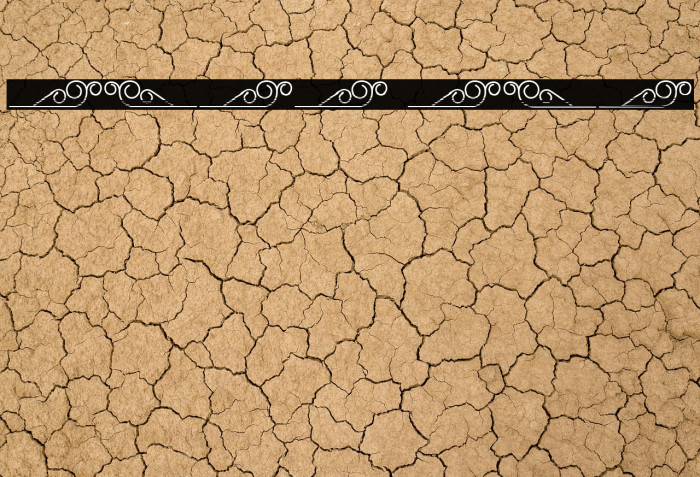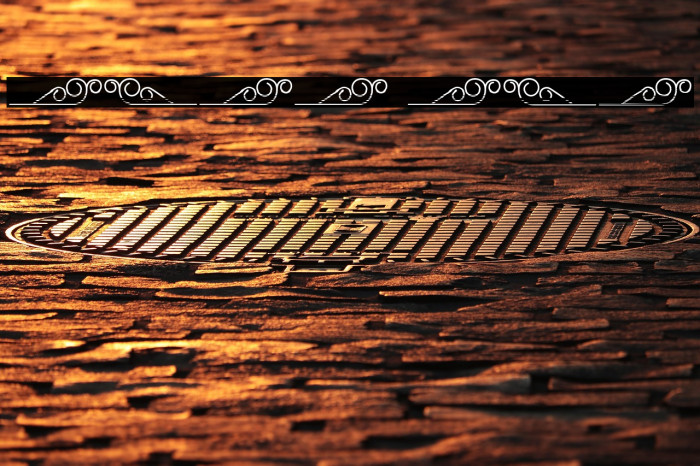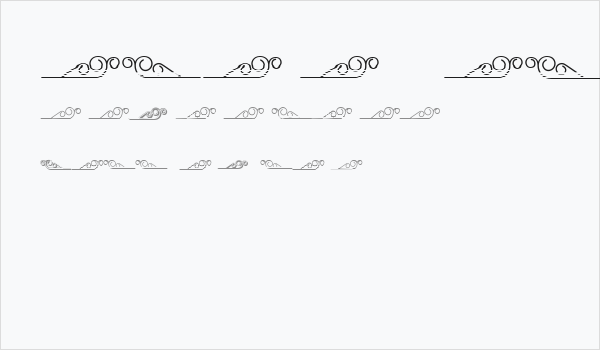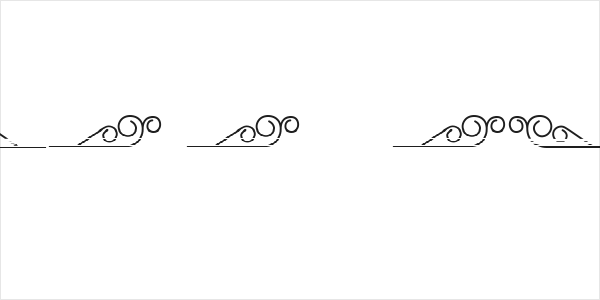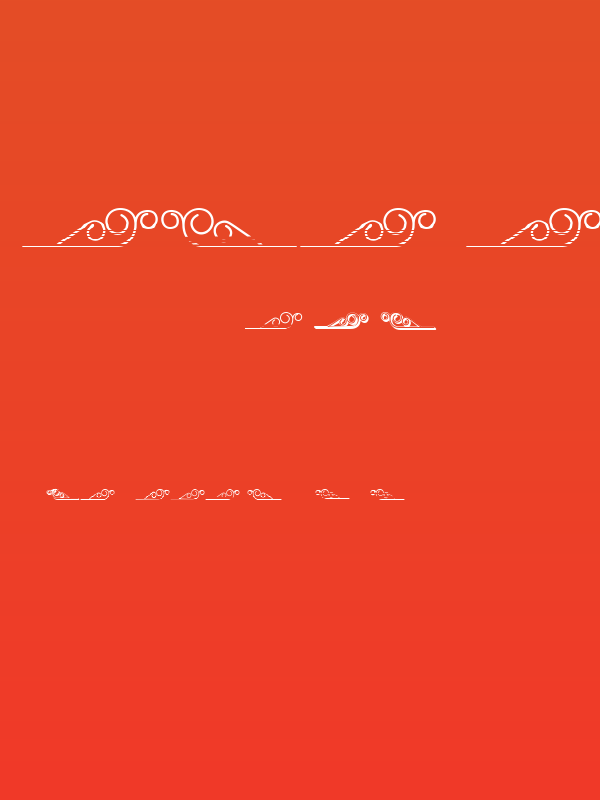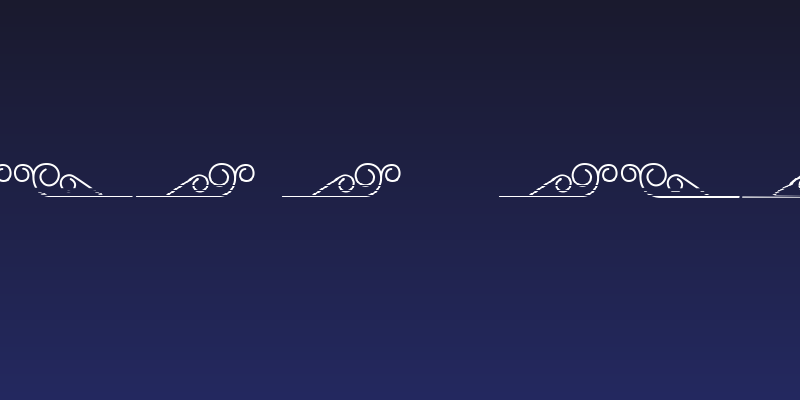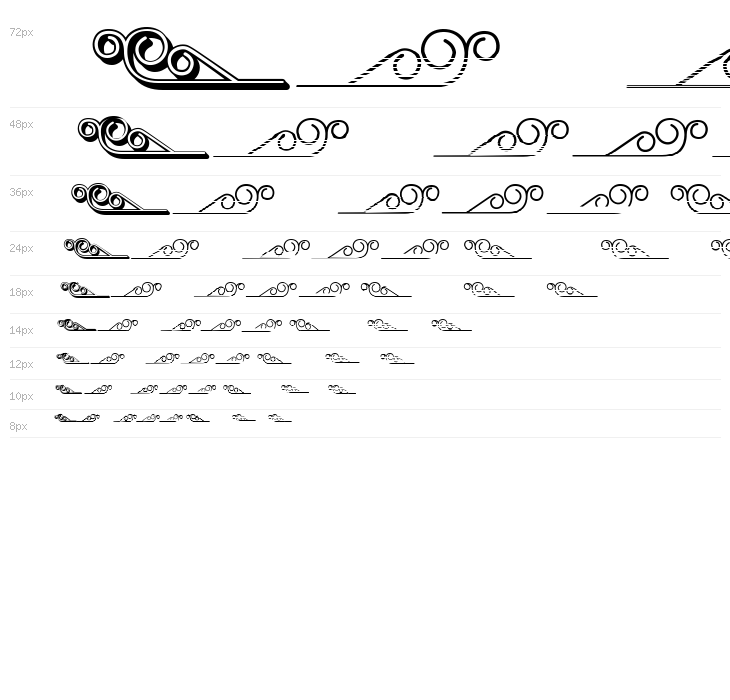
Element Medium Font
✎ Calligraphic
Element Medium Description
This font features a decorative and ornate style, characterized by intricate swirls and flourishes that embellish each character. The design is reminiscent of vintage calligraphy, with a touch of elegance and sophistication. The characters are well-balanced, with a consistent flow that enhances readability despite the elaborate details. The font's unique style makes it suitable for special occasions and formal designs, where a touch of class and refinement is desired. The intricate patterns within the characters create a sense of movement and fluidity, adding to the overall aesthetic appeal.
| Categories | Calligraphic |
| Overall Style | Vintage |
| Use Case | Headlines, Logos, Invitations |
| Proposed Projects | Ideal for wedding invitations, luxury branding, certificates, and decorative headings. |